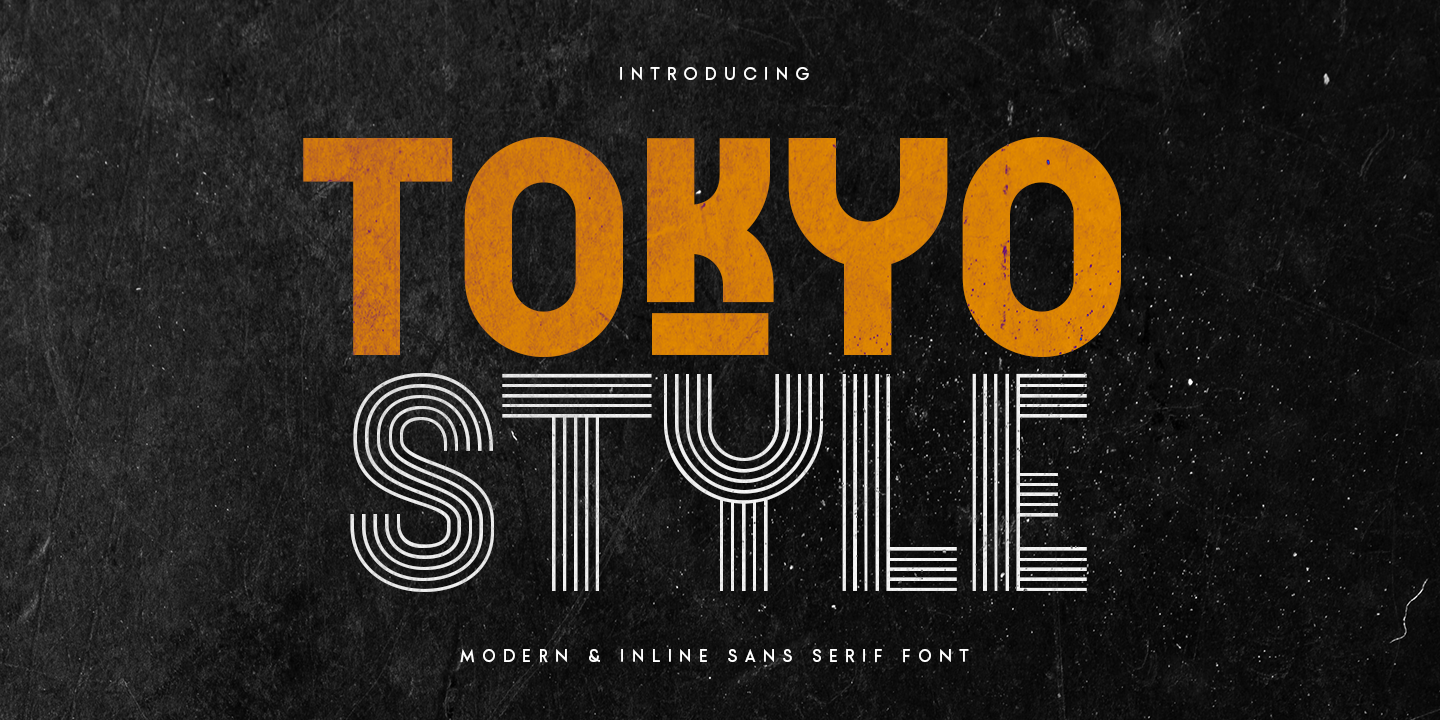
The Tokyo Style Font is an excellent choice for designs that demand a sleek, modern, and often minimalist aesthetic, deeply inspired by the clean lines and contemporary flair of Japanese urban design. Imagine it gracing the branding of innovative tech startups, adding a sophisticated and efficient feel to modern architecture presentations, or bringing a cutting-edge vibe to digital interfaces and mobile apps. It's also perfectly suited for captivating editorial layouts in design magazines, unique packaging for high-tech gadgets, and any project where you want to convey a sense of precision, innovation, and understated elegance. With its balanced proportions and often geometric forms, the Tokyo Style Font is ideal for projects that aim for visual polish and a memorable, contemporary impression.
What makes the Tokyo Style Font truly exciting is its remarkable ability to blend clean, functional design with a distinct, metropolitan sensibility. It’s crafted to reflect the efficiency and aesthetic purity often found in Tokyo's architectural and graphic design landscape, making your message feel both refined and forward-thinking. This font is designed for excellent readability across various mediums and sizes, ensuring your content is always clear while maintaining an elevated aesthetic. It injects a sense of modern professionalism and accessible sophistication into your projects, making it a reliable choice for establishing a credible and contemporary brand presence. The Tokyo Style Font Free Download offers a fantastic opportunity to experience this typeface's versatile capabilities.
The Tokyo Style Font family is typically designed to offer a comprehensive range of weights and styles, maximizing its adaptability for diverse design requirements. While specific family members can vary, you can often expect to find:
• Tokyo Style Thin
• Tokyo Style Light
• Tokyo Style Regular
• Tokyo Style Medium
• Tokyo Style SemiBold
• Tokyo Style Bold
• Tokyo Style Black
• Tokyo Style Italic (or Oblique versions for various weights)
These extensive variations provide designers with ample flexibility to create intricate visual hierarchies, from delicate accents to impactful headlines, ensuring optimal performance across a wide array of applications while maintaining the font's signature clear and contemporary appearance.